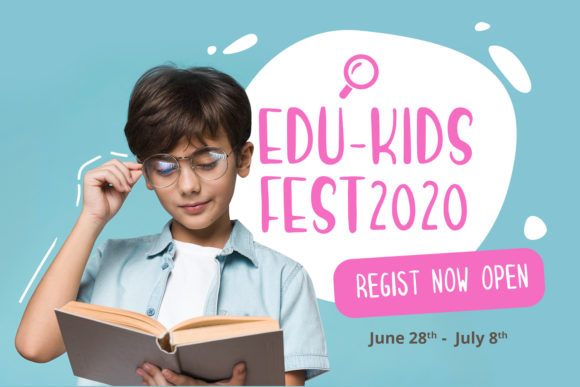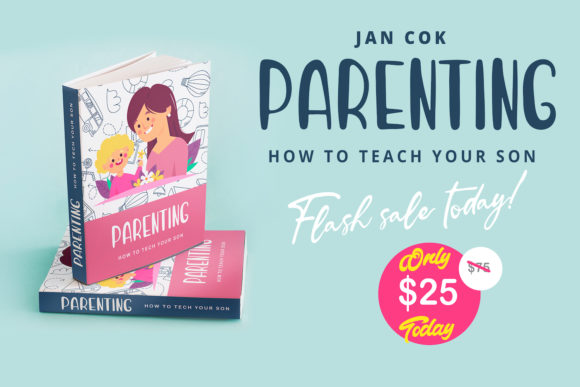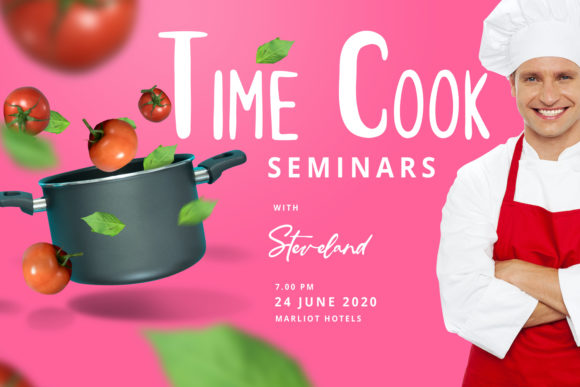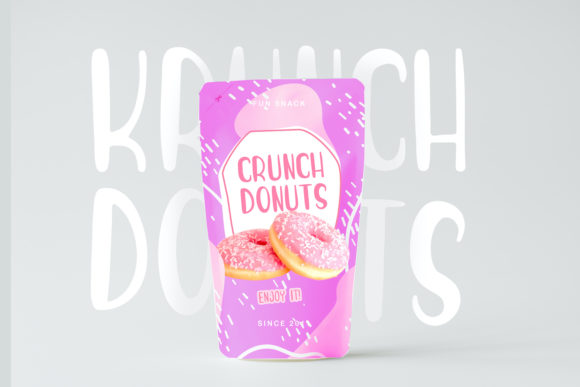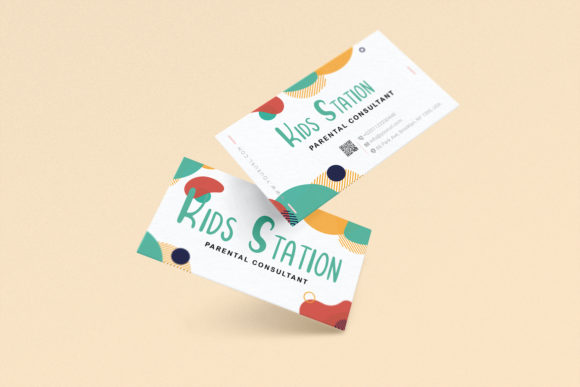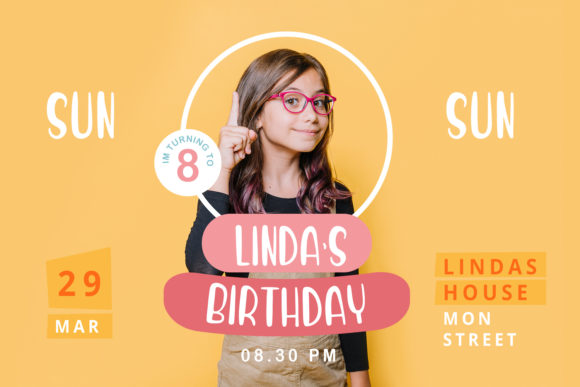
Introduction to Playkidos Font Font
Fonts play a crucial role in design, and the Playkidos Font font is a typeface that brings both character and versatility to any project. Whether you’re working on a branding project, a website, or a print design, the Playkidos Font font offers a unique style that can elevate your work.
Playkidos embodies fun, quirkiness and authenticity.
This enchanting decorative font will turn any creative idea into a true standout Get creative with its childlike playfulness, and use it to brighten up any kids and school project.
Key Features of Playkidos Font Font
Why Choose Playkidos Font Font?
The Playkidos Font font is more than just a typeface – it’s a design tool that helps you communicate your message with style and clarity. Its unique character set and versatile design make it suitable for a wide range of applications, from elegant invitations to bold headlines.
With its carefully crafted letterforms and balanced proportions, the Playkidos Font font ensures readability and visual appeal across all mediums.
What makes Playkidos Font font special?
The Playkidos Font font stands out with its unique design, exceptional readability, and versatility across various design applications.